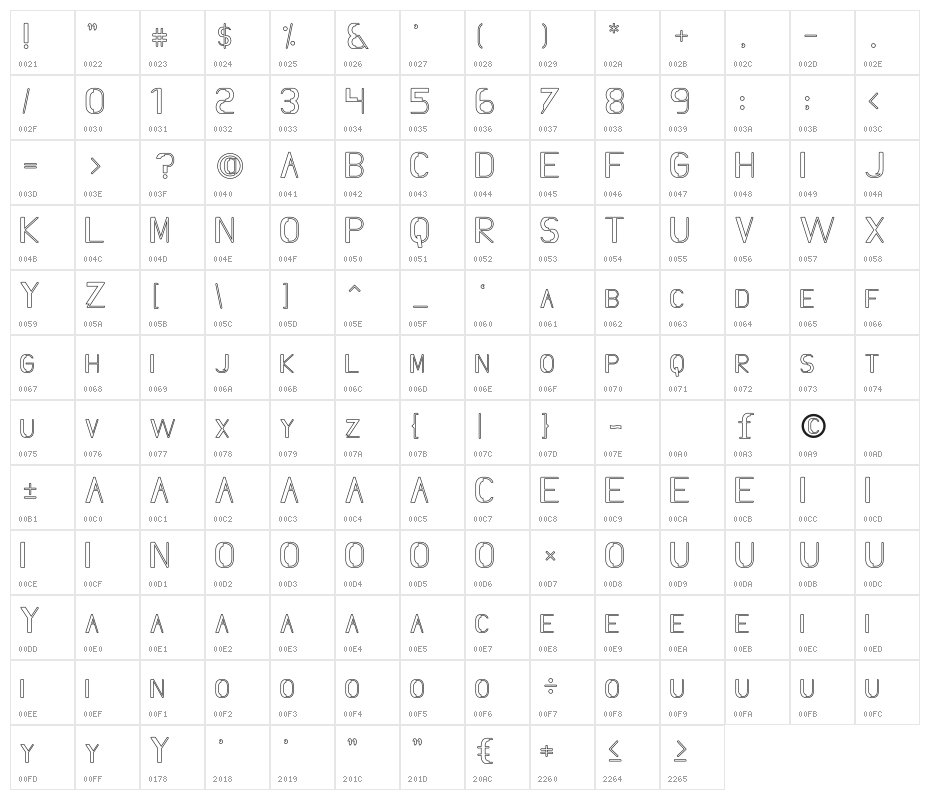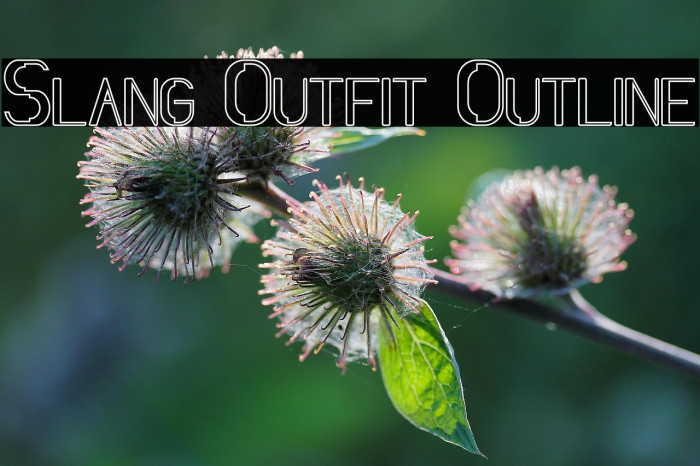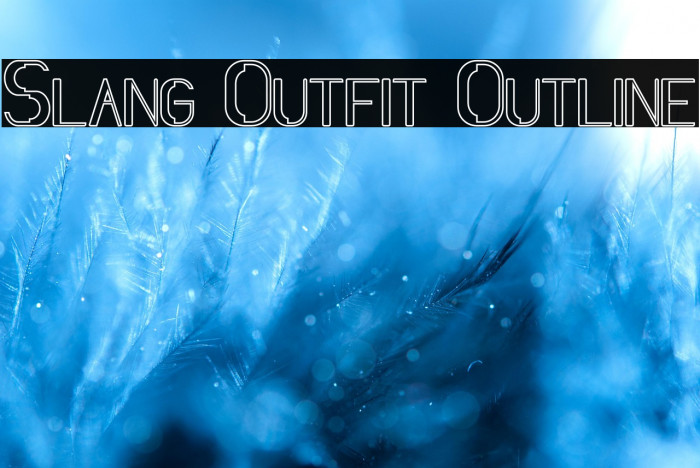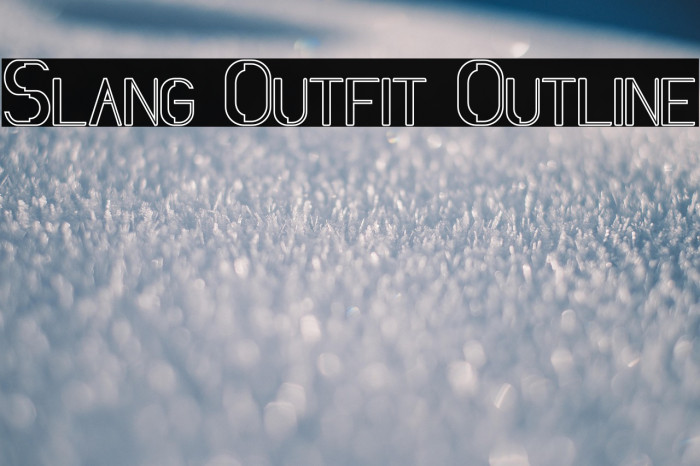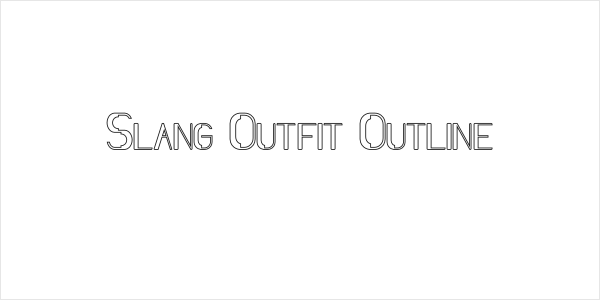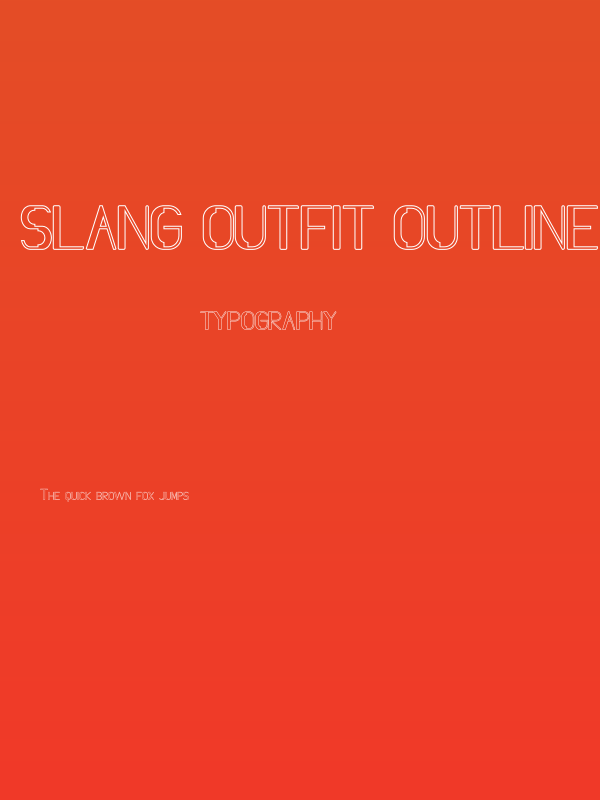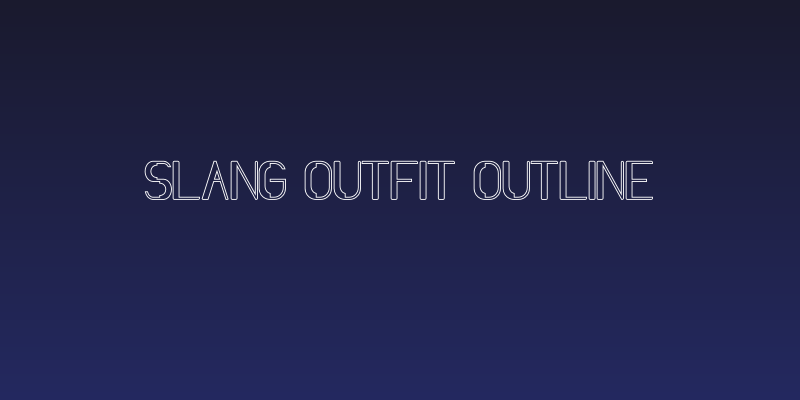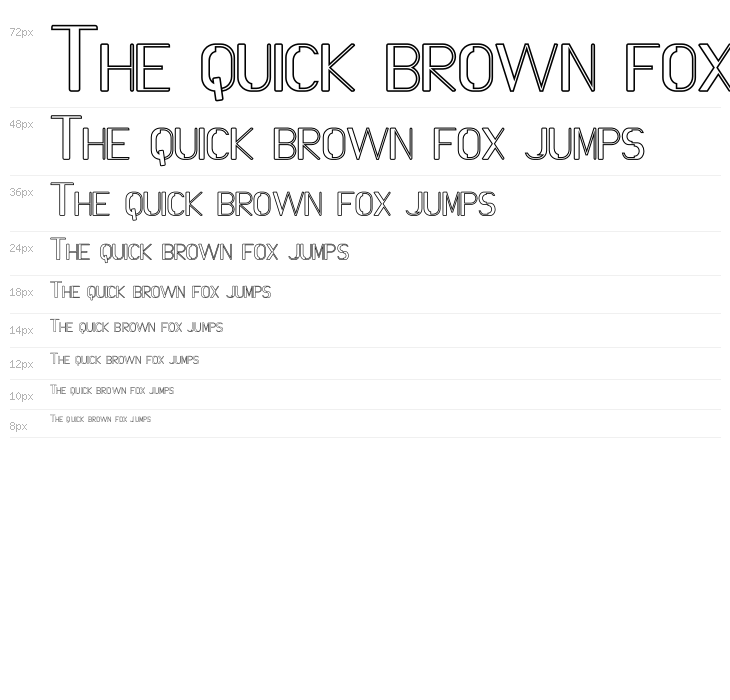
Slang Outfit Outline Font
Slang Outfit Outline Description
This font features a modern, outlined design that gives it a unique and contemporary look. The characters are constructed with clean, geometric lines, creating a sense of openness and clarity. The uppercase and lowercase letters maintain a consistent style, with a uniform stroke width that enhances readability. The numerals and special characters are designed to match the overall aesthetic, providing a cohesive appearance across all elements. This font's outline style makes it stand out, offering a fresh take on traditional sans-serif fonts.
| Proposed Projects | Ideal for branding, posters, and digital media where a modern and distinctive look is desired. |